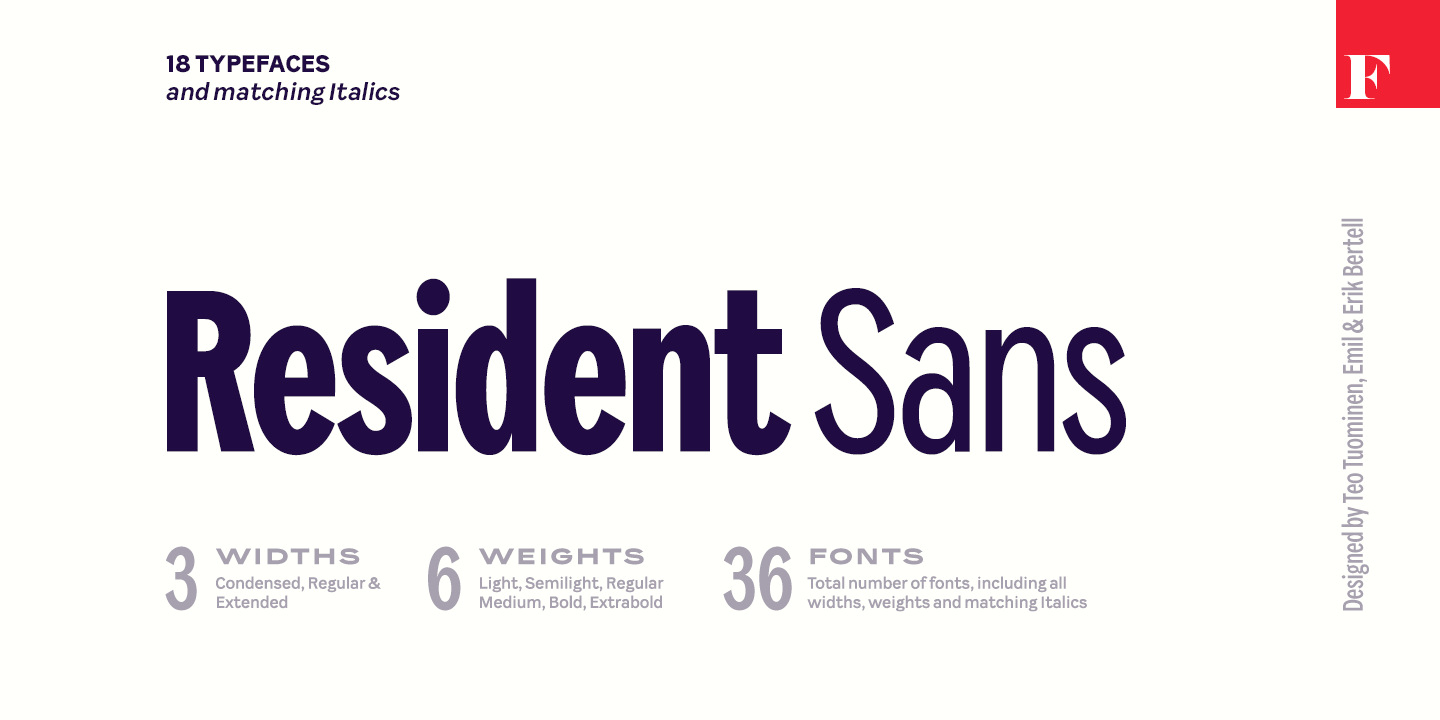
The Resident Font is an excellent choice for a wide array of design applications that aim for a clean, modern, and highly legible aesthetic, often with a friendly or approachable feel. Imagine it providing clear and inviting text for urban development brochures, bringing a minimalist yet warm touch to architectural presentations, or serving as the primary typeface for a community-focused website. Its versatile character also makes it ideal for app interfaces, environmental signage, educational materials, and any project where clarity, trustworthiness, and a contemporary, unobtrusive design are paramount. This font excels in environments that demand both functionality and a welcoming visual presence.
What makes Resident Font so exciting is its balanced blend of geometric precision and humanist readability. It strikes a harmonious chord between modern simplicity and a subtle organic quality, which prevents it from feeling cold or overly sterile. The carefully crafted letterforms, often with open counters and well-defined terminals, ensure excellent legibility across various sizes and media, making it a reliable workhorse for designers. This thoughtful design contributes to an overall sense of professional polish and inviting clarity, ensuring your message is delivered with both straightforwardness and subtle elegance.
The Resident Font family is typically designed to be comprehensive, offering a versatile array of weights and styles to suit diverse design needs. You can often find a spectrum from a delicate Thin or Light, perfect for subtle accents or extensive body text, to a robust and impactful Bold or Black, ideal for headlines and strong statements. The inclusion of italics and potentially even a range of widths (condensed or extended) further enhances its flexibility, allowing designers to create dynamic visual hierarchies and establish distinct moods within their projects. Each weight within the Resident Font family maintains its consistent, clean lines and balanced proportions, ensuring a cohesive and sophisticated aesthetic across all your designs. Explore its potential today – Resident Font Free Download is available now!